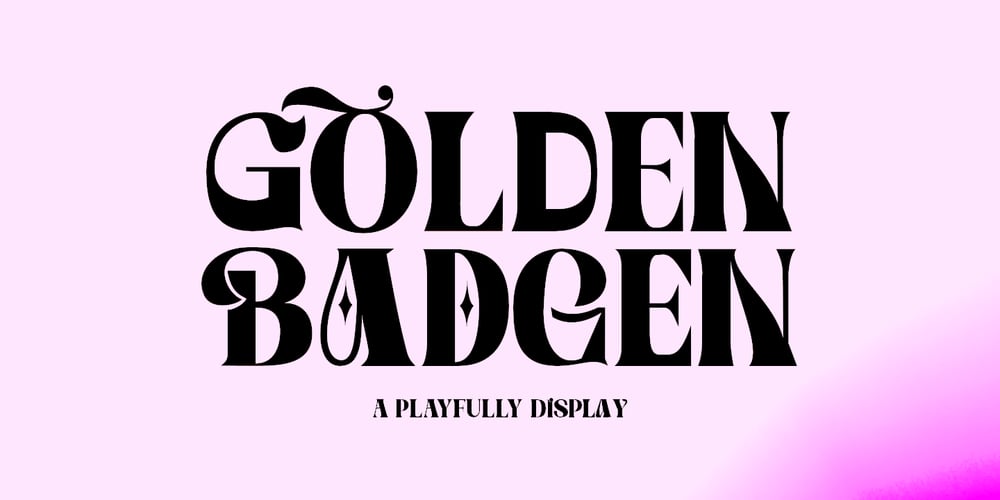
Golden Badge
Golden Badge font
Golden Badge Font Family was designed by Bustami Harun and published by Genesislab. Golden Badge contains 1 styles and family package options. Golden Badge is a luxurious yet elegant display uppercase font. characters that suit today’s styles will be very interesting for you to create any design work with a classy model that still maintains a calm and classy style to look at.You definitely have inspiration to combine with your creativity!. Golden Badge. Multilingual Support.. SwashThank You!Enjoy it for you